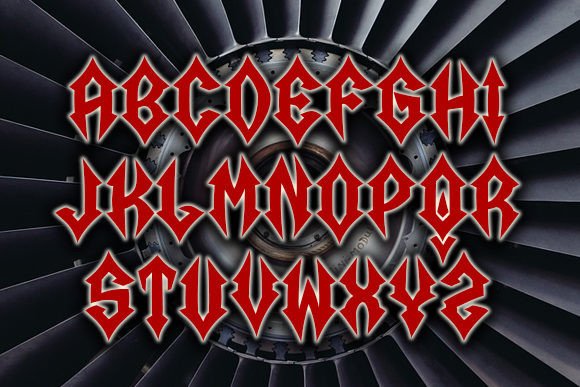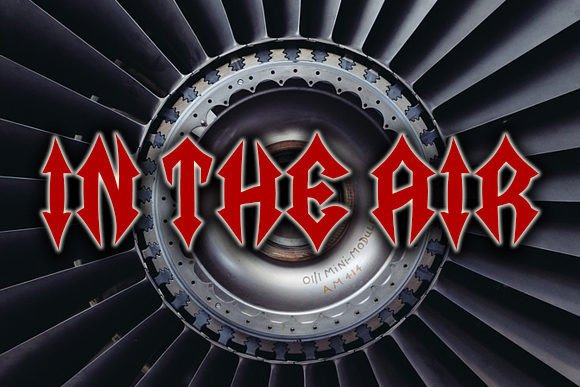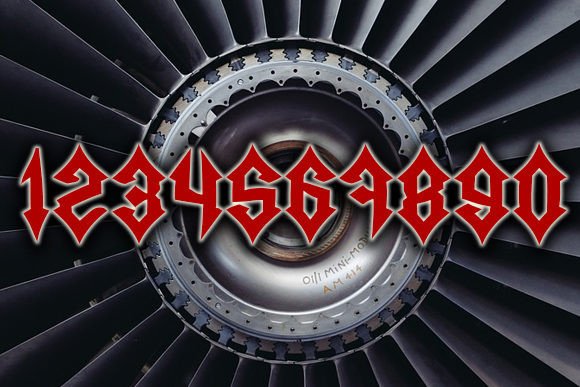
Introduction to Aircraftman Font
Imagine you’re brainstorming ideas for a new design project, and you stumble upon the perfect font to bring your concept to life. It’s a feeling that’s hard to describe, but it’s a mix of excitement, inspiration, and a dash of creativity. For designers, this moment is what drives us to keep pushing the boundaries of what’s possible.
That’s exactly what the Aircraftman Font is all about – unleashing your creative potential with a high-quality, edgy, and sharp Gothic typeface. This design resource is perfect for adding a touch of sophistication to your banners, headlines, and much more. Whether you’re working on a free download project or a commercial campaign, the Aircraftman Font is sure to make your work stand out.
With its transparent background and versatility, the Aircraftman Font is a valuable asset for any designer looking to elevate their creative project. So, what are you waiting for? Dive into the world of Aircraftman Font and discover the endless possibilities it has to offer.
Aircraftman Font
- High-quality design resource ideal for creative projects.
- Features a unique, modern design with a transparent background.
- Designed to be highly legible, even at small font sizes.
- Perfect for use in digital design, such as logos, icons, and graphics.
Honest Review: Aircraftman Font
As a designer, I’m always on the lookout for unique and high-quality design resources. Recently, I came across the Aircraftman Font, and I’m excited to share my honest review with you.
What works well: ✨ The Aircraftman Font has a distinctive, industrial look that’s perfect for creative projects like infographics, labels, and signage. The font is available for free download, which is a big plus. The high-quality design makes it suitable for both digital and print applications.
The font has a transparent background, making it easy to use in various design scenarios. It’s also highly versatile, with a range of weights and styles to choose from. Whether you’re working on a simple logo or a complex design system, the Aircraftman Font is a great choice.
Limitations: ⚠️ While the Aircraftman Font is a great resource, it may not be suitable for all types of projects. The font’s industrial look can be quite bold, so it’s best used for designs that require a strong, attention-grabbing feel. Additionally, some users may find the font’s style a bit too trendy, which could be a concern for projects that require a more timeless look.
Overall impression: I’m impressed with the Aircraftman Font’s unique design and high-quality execution. While it may have some limitations, it’s a great resource for designers looking to add some industrial flair to their projects.
Tips for Getting the Most Out of Aircraftman Font
Use the Aircraftman Font in conjunction with a transparent background to create a clean and minimalist design. Experiment with different font sizes and styles to add visual interest to your project.
The Aircraftman Font is ideal for creative projects that require a unique and modern touch. Use it for logos, branding, packaging, or advertising materials to make a lasting impression.